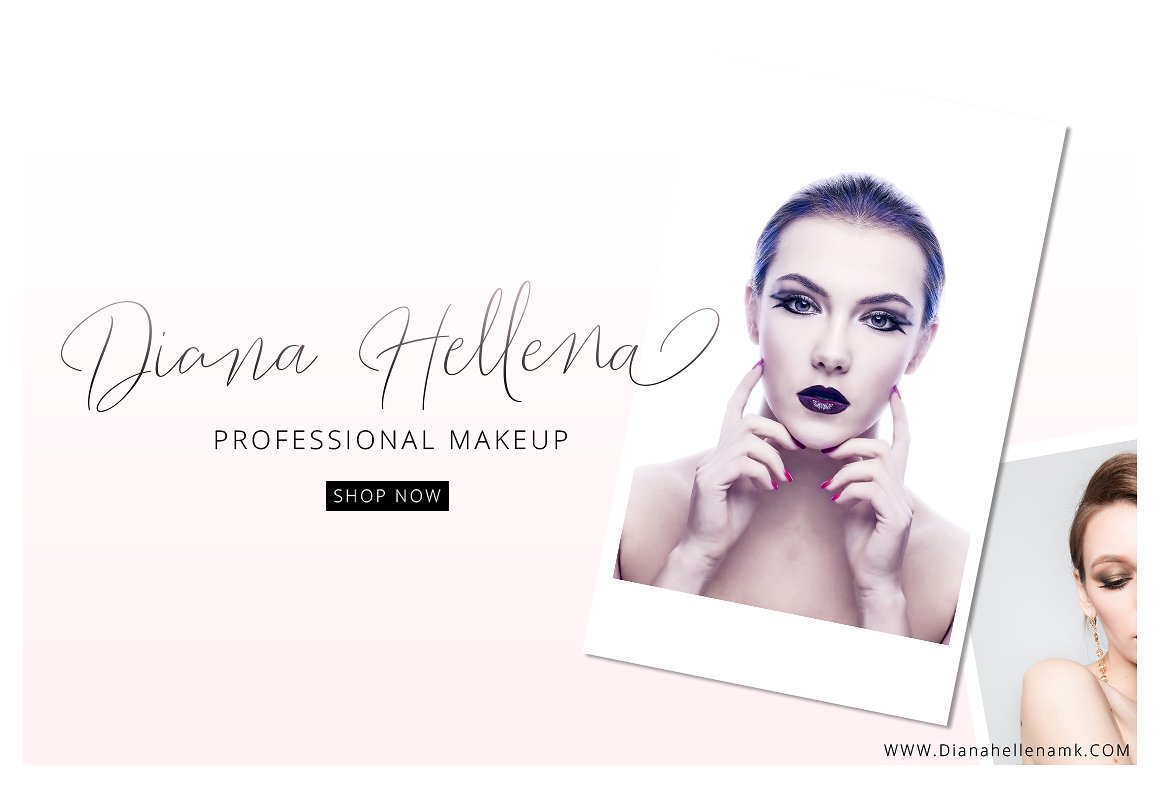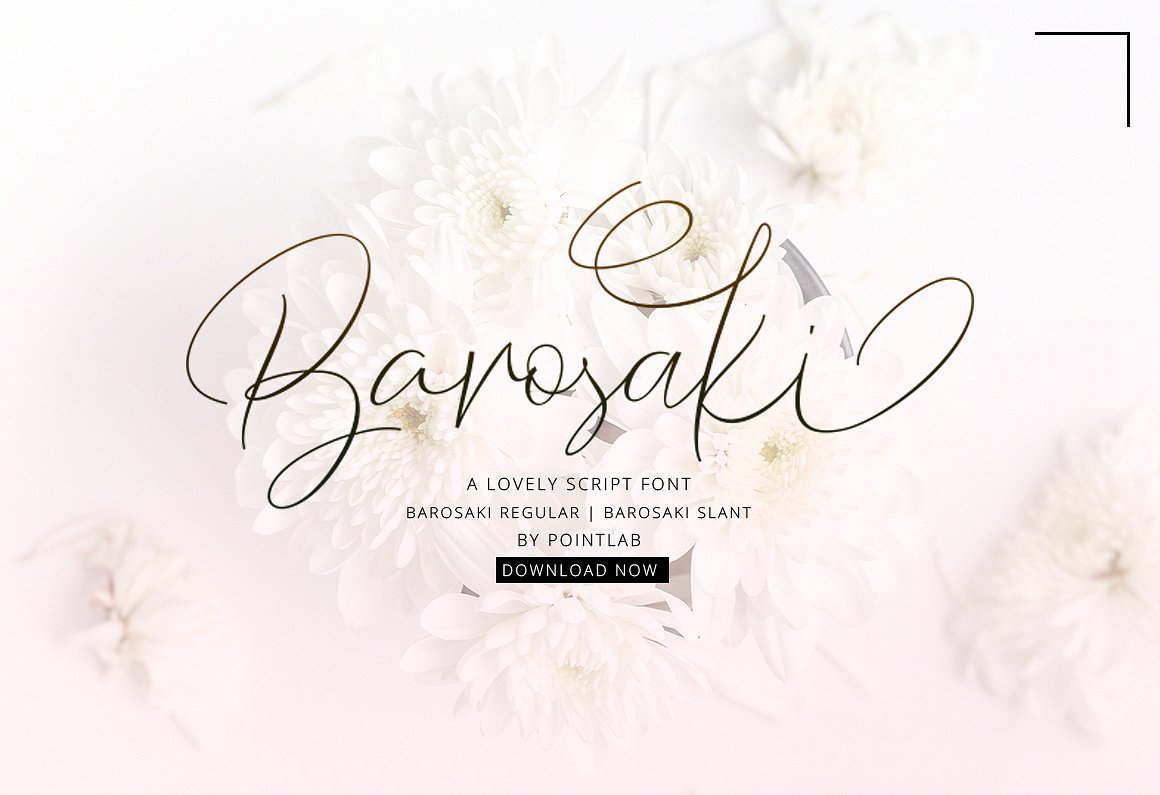
Barosaki Script
Barosaki Script Font
Hello!! Introduce my new font Barosaki is a unique blend of classic and modern font. imperfect style ups and downs, like a dance letters, smooth, clean and simple. Perfect for wedding, event, invitation, escort card, table number, header menus, display, logos, slider blog, custom address, stamps, packaging, greeting card, etc.